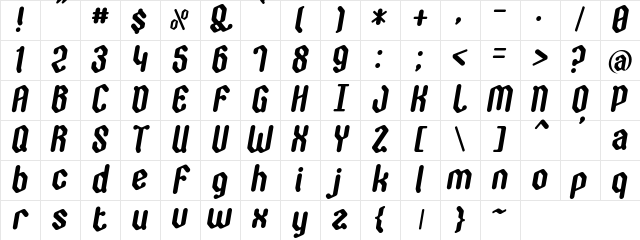
Zygoth Regular
Design Context for Zygoth
Zygoth is a composed and adaptable typeface that performs quietly and consistently across a wide range of design contexts.